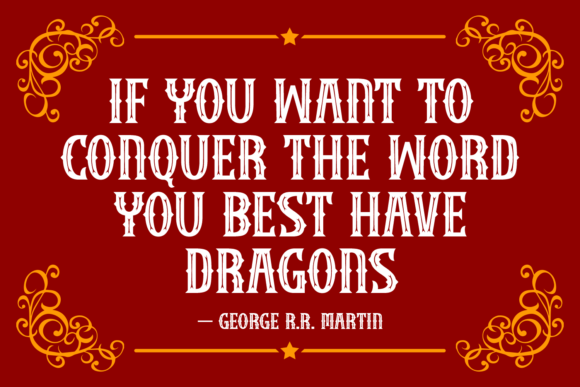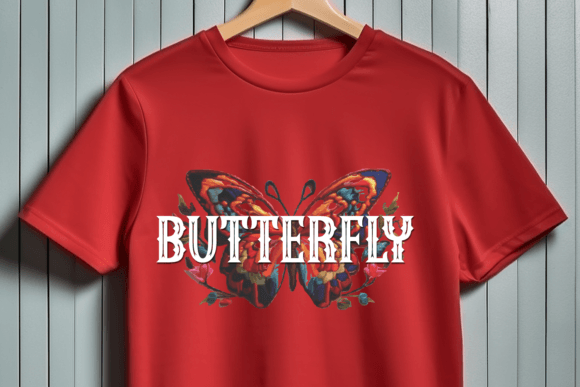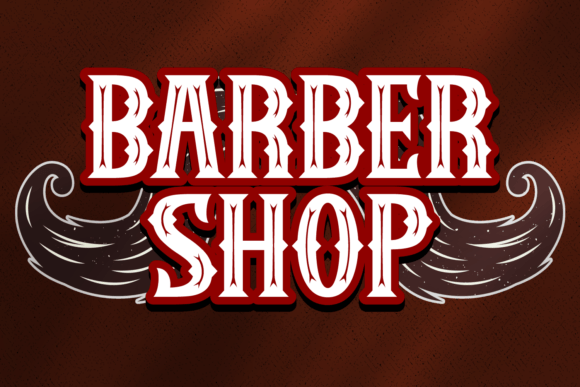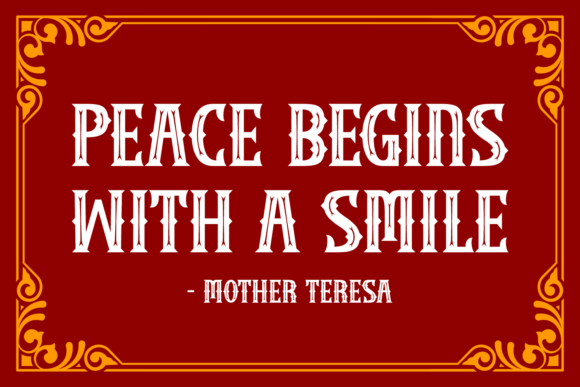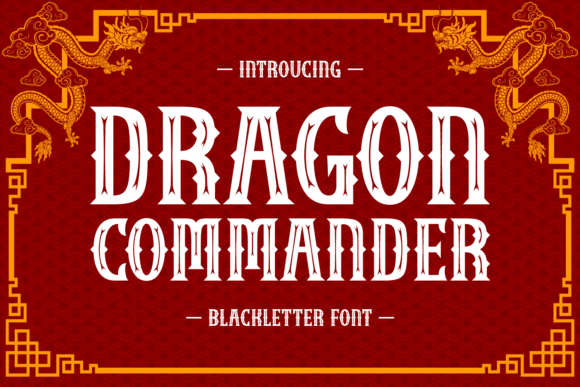
Unleash the Spirit of the Old West with Dragon Commander Font
Are you looking for a font that embodies the ruggedness and adventure of the American frontier? Look no further than the Dragon Commander font, a Western-inspired blackletter typeface that is sure to add a touch of drama and tradition to your design projects. In this article, we’ll explore the unique characteristics of the Dragon Commander font, its uses, and why it’s a must-have for designers and crafters alike.
The Unique Fusion of Western and Blackletter Styles
Dragon Commander font is a one-of-a-kind typeface that combines the bold, ruggedness of Western fonts with the elegance and sophistication of blackletter fonts. This fusion creates a unique, eye-catching typeface that is both dramatic and adventurous. The font’s Western-inspired elements evoke the spirit of the Old West, while its blackletter roots add a touch of classic elegance.
Perfect for Historical and Western-Themed Projects
Dragon Commander font is perfect for projects that aim to evoke strength, tradition, and the spirit of the American frontier. Its unique mix of styles makes it an ideal choice for projects with historical or Western themes, such as:
• Book covers: Add a touch of rugged elegance to your book covers with Dragon Commander font.
• Movie posters: Create eye-catching movie posters that evoke the spirit of the Old West.
• Branding: Use Dragon Commander font to create a bold and adventurous brand identity for products that seek to evoke a sense of tradition or the American frontier.
Key Features of Dragon Commander Font
Dragon Commander font boasts a range of features that make it a versatile and effective typeface for designers and crafters. Some of its key features include:
• Bold and dramatic lettering: Dragon Commander font features bold, dramatic lettering that is sure to grab attention.
• Western-inspired elements: The font’s Western-inspired elements add a touch of ruggedness and adventure.
• Blackletter roots: The font’s blackletter roots add a touch of classic elegance and sophistication.
• High-quality design: Dragon Commander font is designed to the highest standards, ensuring crisp and clear lettering at any size.
Tips for Using Dragon Commander Font
Here are some tips for getting the most out of Dragon Commander font:
• Use it sparingly: Dragon Commander font is a bold and dramatic typeface, so use it sparingly to avoid overwhelming your design.
• Pair it with contrasting fonts: Pair Dragon Commander font with contrasting fonts to create visual interest and add depth to your design.
• Experiment with colors: Dragon Commander font looks great in a range of colors, from bold and bright to muted and earthy.
Dragon Commander font is a unique and versatile typeface that is perfect for designers and crafters looking to add a touch of drama and adventure to their projects. With its fusion of Western and blackletter styles, this font is sure to evoke the spirit of the Old West and add a touch of tradition and elegance to your designs. Whether you’re working on a book cover, movie poster, or branding project, Dragon Commander font is a must-have font that is sure to impress.